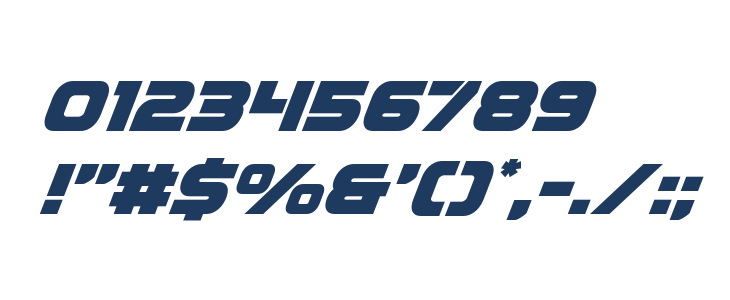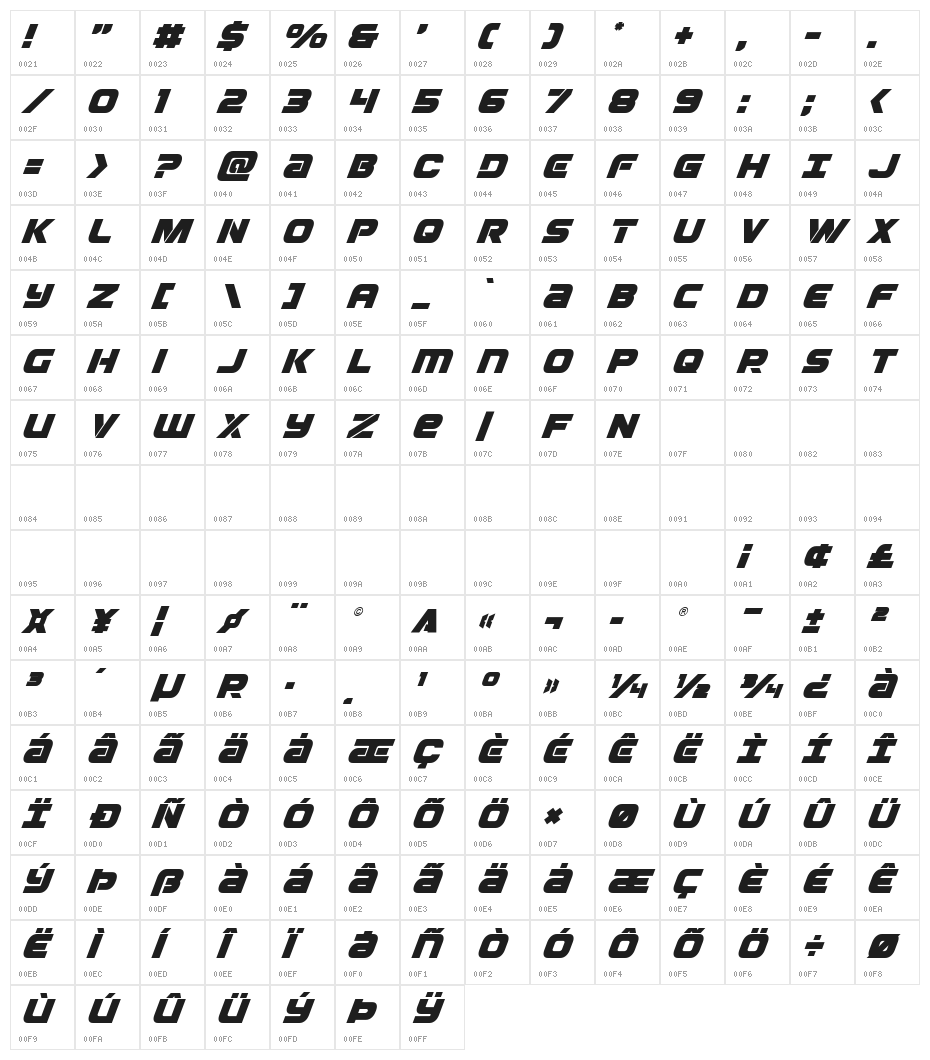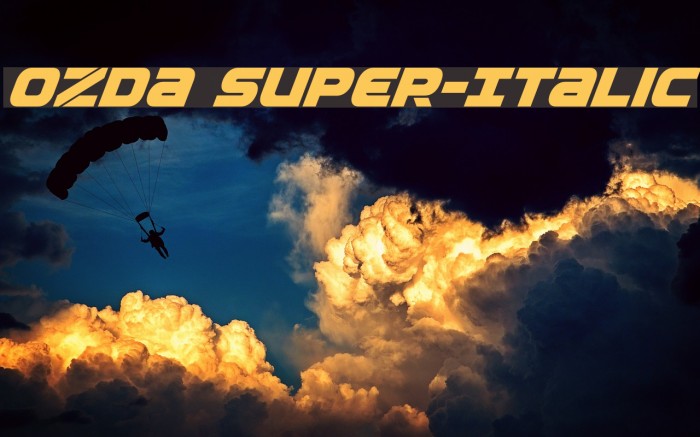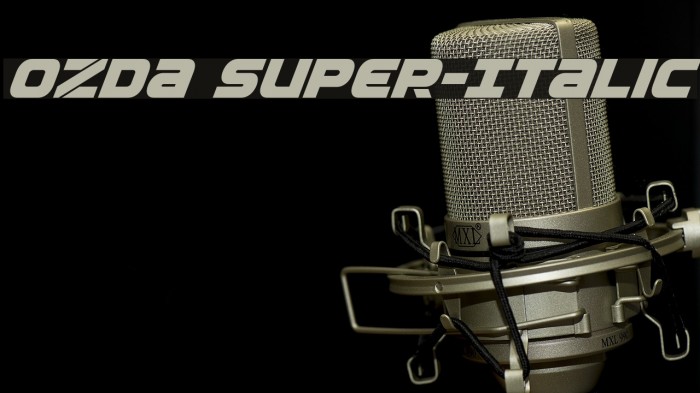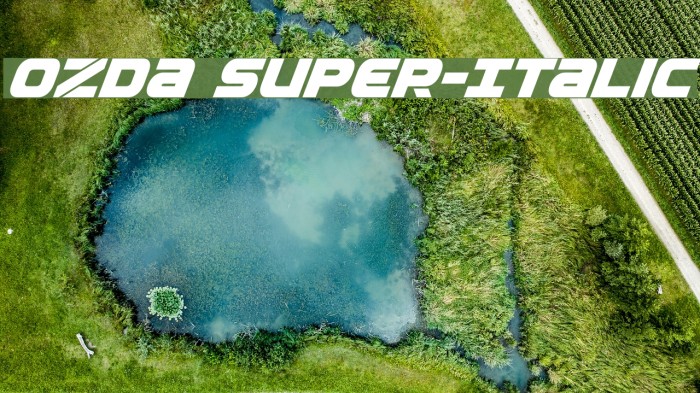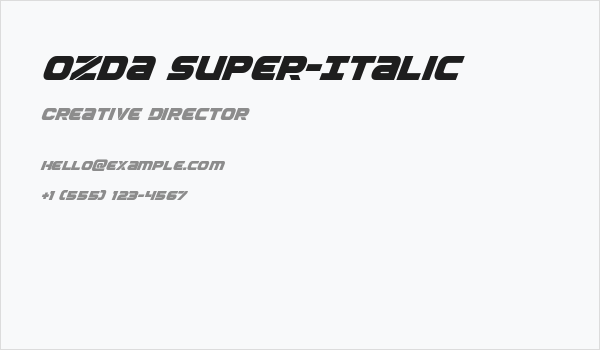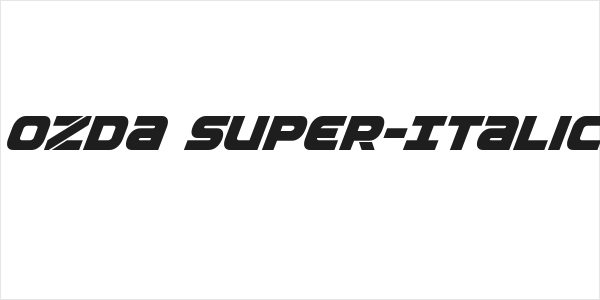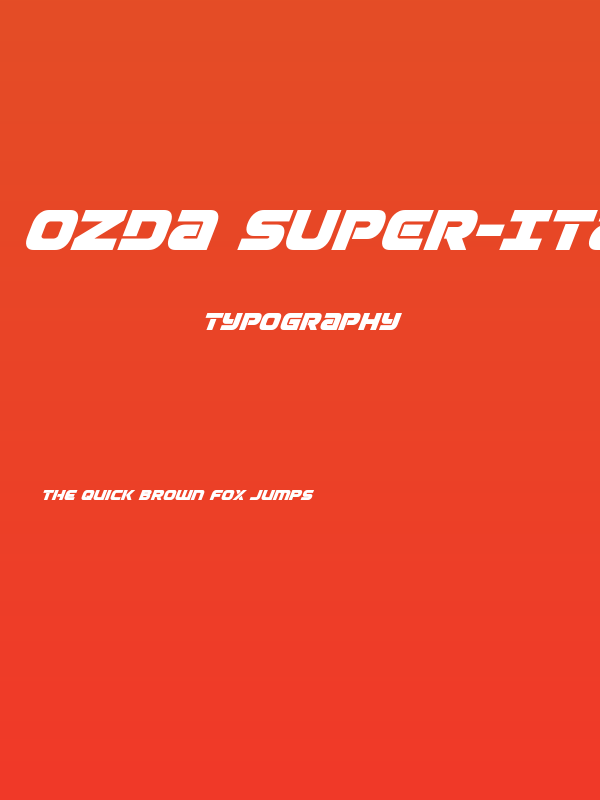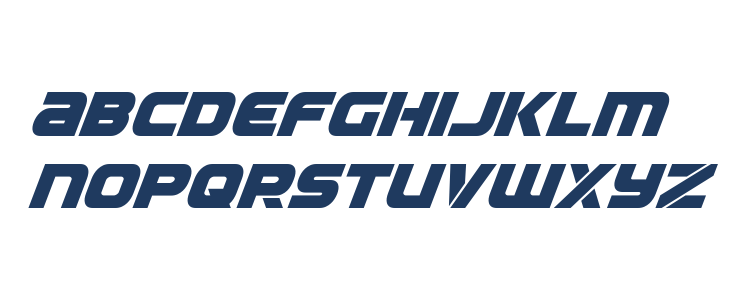
Ozda Super-Italic Font
Ozda Super-Italic Description
This font features a bold and dynamic style with a distinct italic slant, giving it a sense of motion and speed. The characters are wide and have a strong presence, making them ideal for attention-grabbing headlines. The strokes are thick and consistent, providing a uniform appearance across all characters. The design is modern and sleek, with a futuristic edge that makes it suitable for tech-related projects or branding. The spacing between characters is tight, enhancing the compact and cohesive look of the text. Overall, this font is perfect for projects that require a bold and impactful visual statement.
| Proposed Projects | Ideal for sports branding, tech logos, dynamic posters, and futuristic designs. |